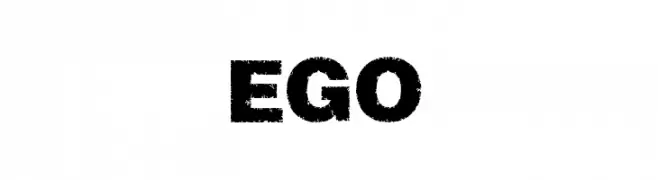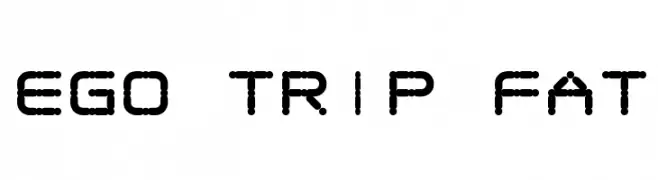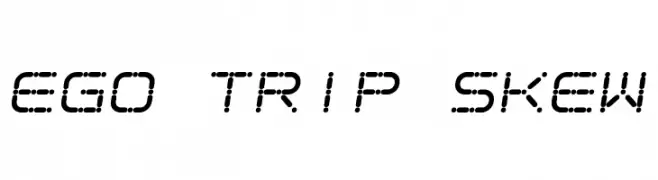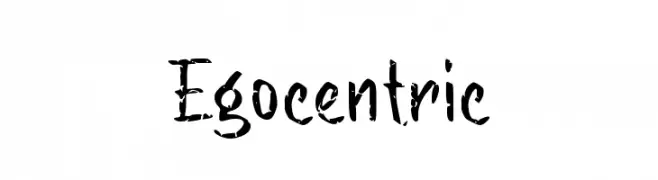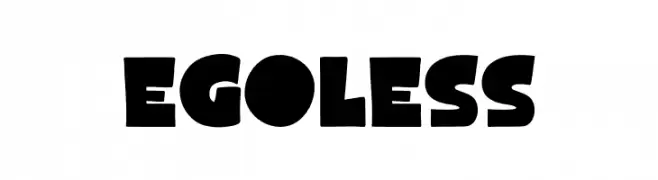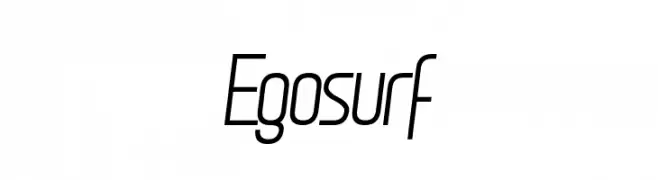
• EGO
• Ego trip
A futuristic, dotted font with a digital display aesthetic.
• Ego trip Fat
A futuristic, dotted font with a digital and modern aesthetic.
• Ego trip Fat Skew
A futuristic, segmented font with a tech-inspired, dynamic design.
• Ego trip Skew
A futuristic, dotted font with a slanted, digital style.
• Egocentric
A bold, textured handwritten font with an energetic and playful style.
• Egoless
A bold, playful font with geometric shapes and a strong, modern presence.
• Egosurf
A sleek, modern font with elongated, narrow characters and a minimalistic design.